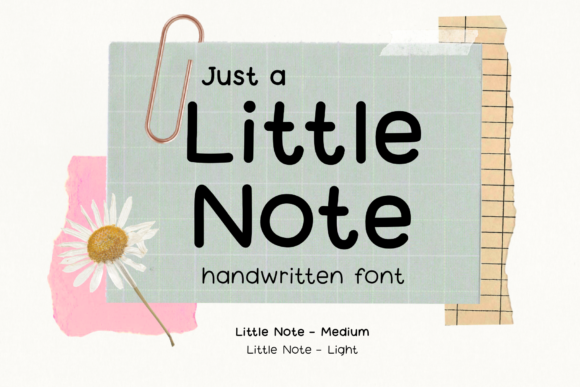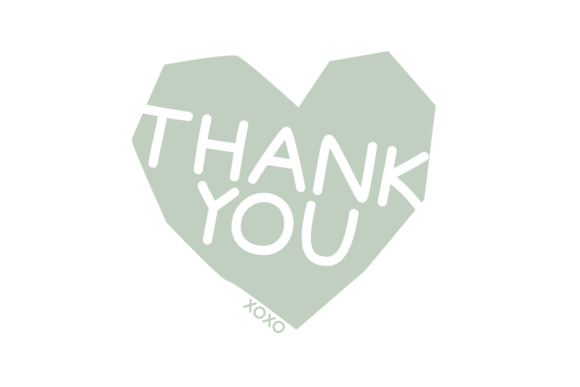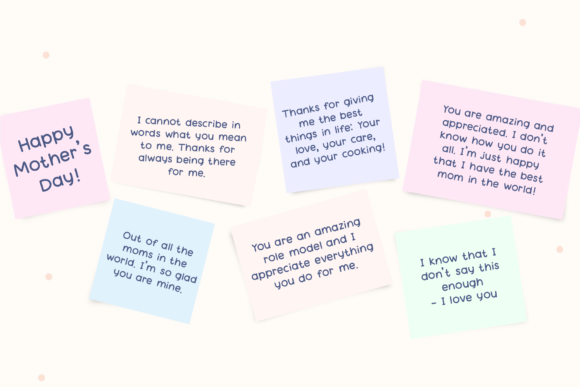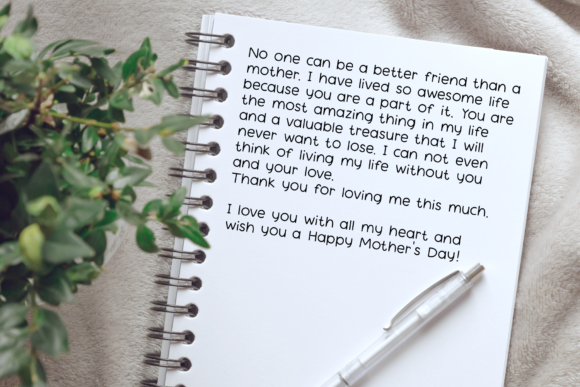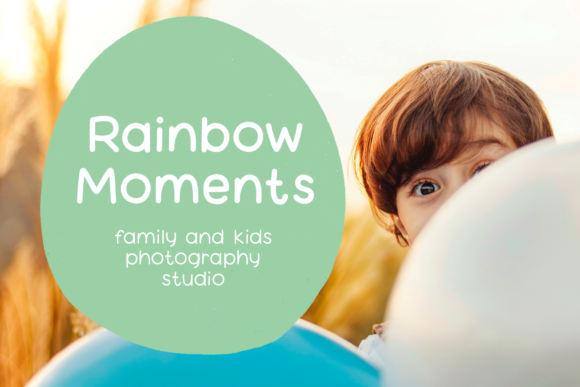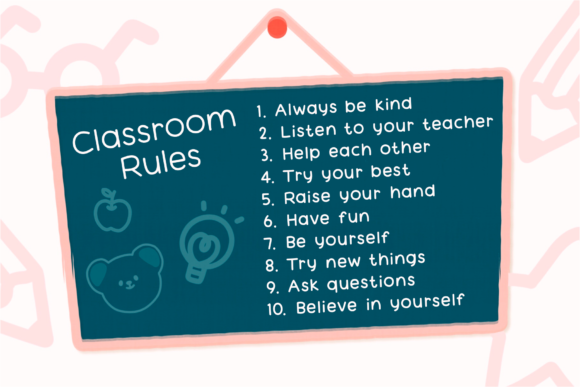
About Little Note Font
Little Note is a simple and cute handwritten font. You can use this font in various projects, such as blog posts, logos, branding, digital planners, invitations, greeting cards, decorations and so much more.